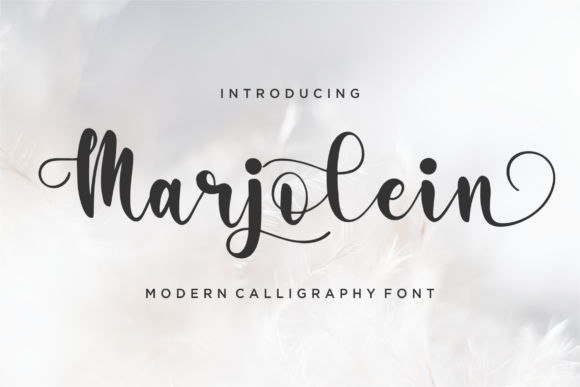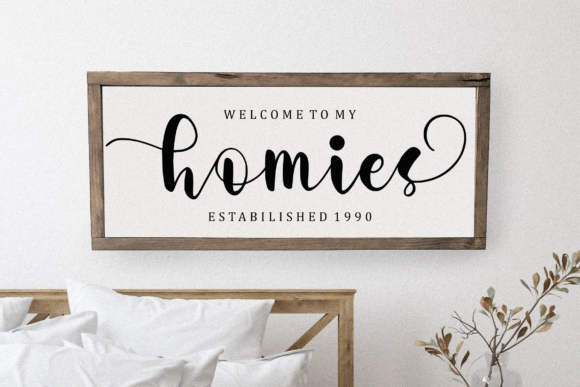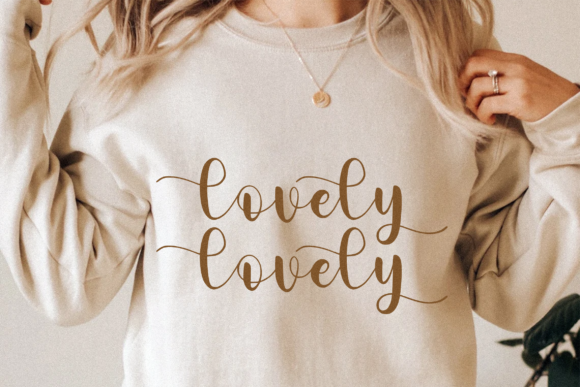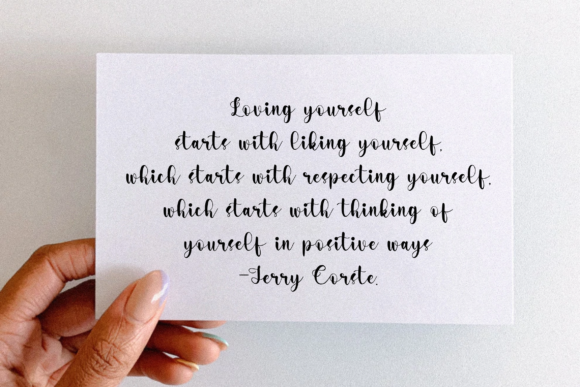
Introducing “Marjolein,” a modern calligraphy font designed to bring elegance and sophistication to your creative projects. This versatile font is perfect for a variety of applications, including product packaging, branding projects, magazines, social media graphics, weddings, and more. Let Marjolein express words above the background with its refined and contemporary calligraphic style.
The beauty of Marjolein lies in its modern and graceful calligraphy, making it a suitable choice for projects that require a touch of sophistication. Whether you’re working on branding materials, social media posts, or wedding invitations, this font adds a luxurious and stylish element to your designs.
Visualize Marjolein enhancing product packaging, creating a memorable and elegant presentation for your brand. Picture it gracing the pages of a magazine, adding a touch of modernity to your editorial layouts. Envision Marjolein contributing to the romantic and timeless atmosphere of wedding invitations, making each piece a work of art.
Incorporate Marjolein into your design toolkit to elevate your projects. Its modern calligraphy style offers a contemporary twist while maintaining a classic elegance. Use it to express words with finesse above various backgrounds, and let the beauty of Marjolein shine through in your creative endeavors.